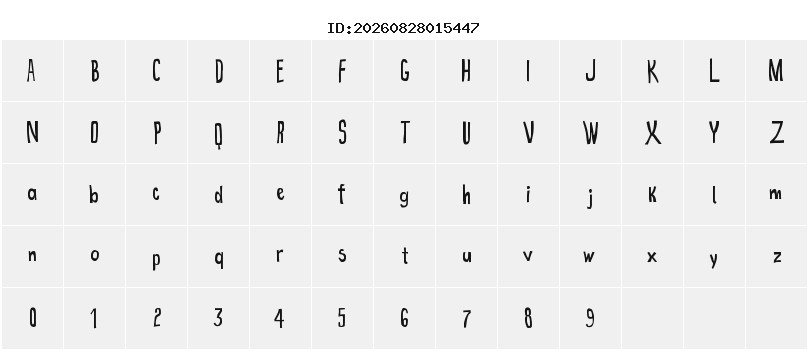
True 2D Preview
• Font Name: True 2D
• Full Font Name: True 2D
• Version: Version 1.00 December 23, 2012, initial release
• Character Count: 234
About True 2D.ttf
True 2D.ttf is a modern, elegant sans-serif font designed for ultimate readability and visual harmony. Perfect for branding, headlines, web design, and print materials.